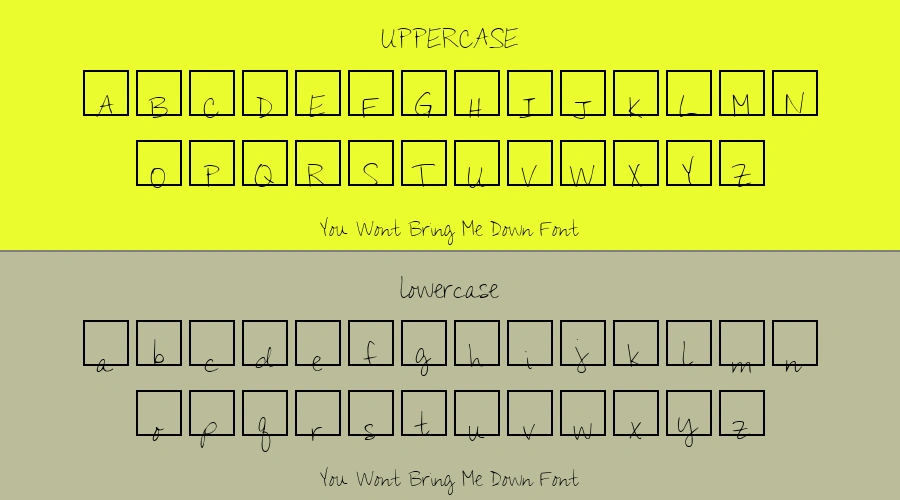
About You Wont Bring Me Down Font
You Wont Bring Me Down Font stands out for its distinctive combination of brush influence and reliability. Ideal for brand identities, it provides the accuracy and market relevance that professional projects demand. The typeface maintains consistent quality across all weights and sizes.
Key features include refined ink traps and practical small caps, enhancing typographic expression. In packaging applications, You Wont Bring Me Down Font demonstrates exceptional headline impact. The terminal angle and cultural relevance contribute to its distinctive character and professional appeal.